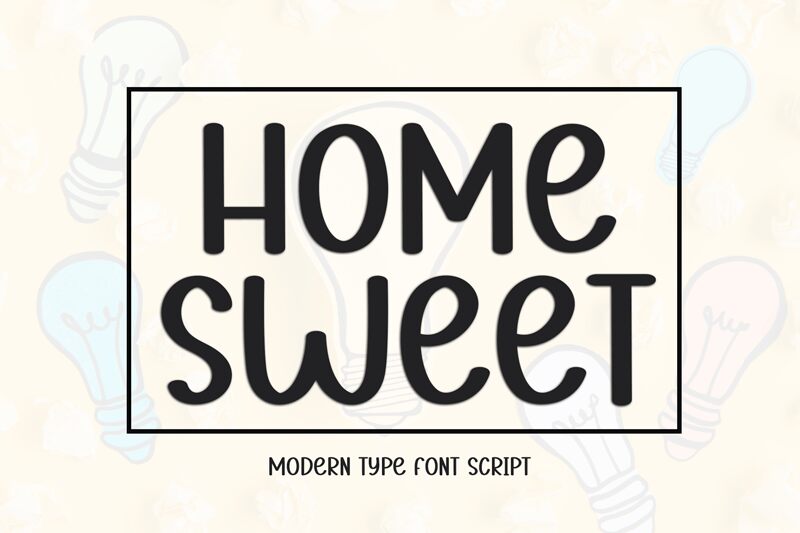
Home Sweet is a free script font designed by Creatype Designer with a modern and friendly style. This casual typeface is clean and informal with letters that are well defined and simple. The engaging look allows the reader to put their full focus on the text and the message it delivers while creating an approachable yet contemporary design.
Being very versatile and readable, this font can be used in business cards and invitations, both printed and digital, as well as product packaging, scrapbooks, stationery designs, flyers, magazines, and book covers. You can also use it for logotypes, posters, labels, menus, and apparel items.
This font combines a classy calligraphic influence with a contemporary and fresh feel. Its versatility makes it suitable for a wide range of creative projects, including letterheads, titles, and stationery.